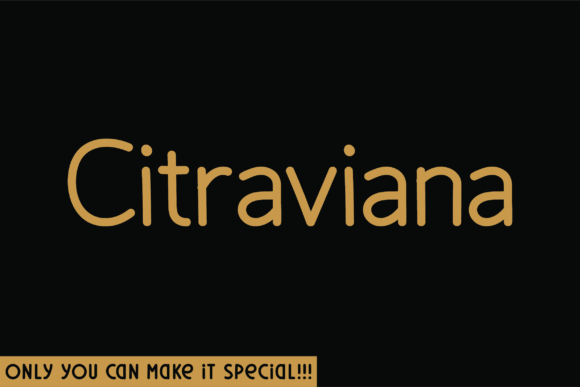
Citraviana Font: A Unique and Natural Handwritten Style
In the world of typography, fonts play a crucial role in conveying messages, expressing emotions, and creating visual identities. For designers, crafters, and creative enthusiasts, finding the right font can make all the difference in bringing their ideas to life. If you’re on the hunt for a distinctive and charming font, look no further than Citraviana. This natural handwritten font is making waves in the design community, and for good reason.
The Unique Charm of Citraviana
Citraviana is a natural handwritten font that boasts a unique characteristic: not a single node in each character’s indentation has been altered. This means that every letter, every curve, and every nuance of the font is authentic and unedited, giving it an organic and genuine feel. The result is a font that exudes warmth, personality, and a touch of whimsy.
Citraviana’s versatility makes it an excellent choice for a wide range of design projects. Whether you’re creating quotes, notes, t-shirts, or any product design, this font is sure to add a personal touch. Its natural, handwritten style lends itself well to:
- Quote designs: Add a touch of elegance and sophistication to your inspirational quotes and phrases.
- Note-taking: Make your notes and journals more visually appealing with Citraviana’s charming and legible font.
- T-shirt designs: Create eye-catching and stylish tees that stand out from the crowd.
- Product design: Use Citraviana to add a personal touch to your product labels, packaging, and branding materials.
Why Designers and Crafters Love Citraviana
So, what makes Citraviana a favorite among designers and crafters? Here are just a few reasons:
- Uniqueness: Citraviana’s unaltered nodes give it a distinctive character that sets it apart from other fonts.
- Legibility: Despite its handwritten nature, Citraviana remains clear and easy to read, making it perfect for a variety of applications.
- Flexibility: This font can be used for both digital and print projects, making it a versatile addition to any design toolkit.
- Aesthetics: Citraviana’s natural, organic feel adds a touch of warmth and personality to any design.
Get Creative with Citraviana
In conclusion, Citraviana is a one-of-a-kind font that offers a refreshing alternative to traditional typography. Its unique, natural handwritten style makes it perfect for designers, crafters, and creative enthusiasts looking to add a personal touch to their projects. With its versatility, legibility, and aesthetics, Citraviana is sure to become a favorite in your design toolkit. So, what are you waiting for? Give Citraviana a try and discover the creative possibilities for yourself!